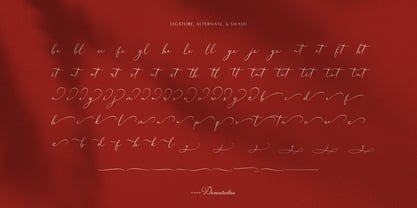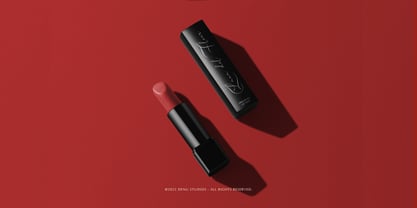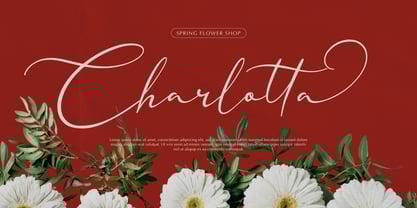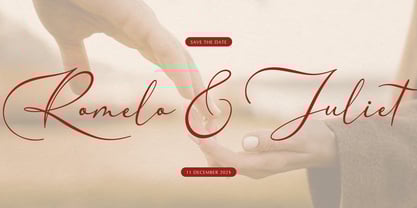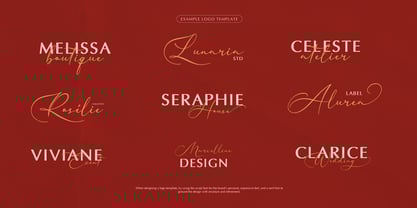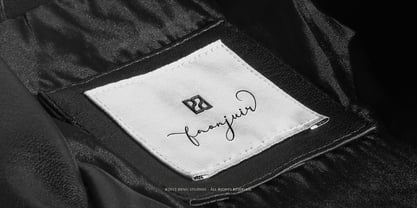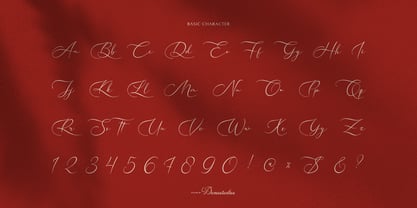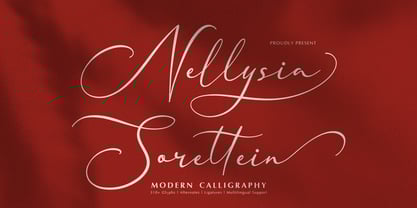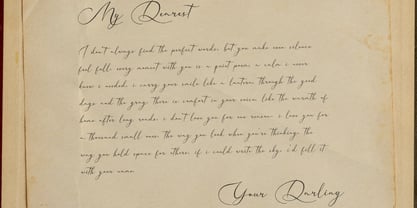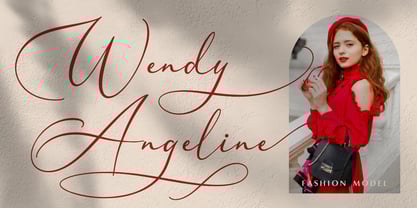
Nellysia Sorettein
par Denustudio
La famille de polices Nellysia Sorettein a été conçue par Dede Nugraha et publiée par Denustudio. Nellysia Sorettein contient 2 styles et options de package familial.
Nellysia Sorettein | Modern Calligraphy, from Denustudios, suitable for any projects such as: logos, branding projects, homeware designs, product packaging, mugs, quotes, posters, shopping bags, t-shirts, book covers, name card, invitation cards, greeting cards, label, photography, watermark, special events, and all your other lovely projects that need Modern Calligraphy a taste.
• Regular and Italic
• Standard glyphs
• Alternate and Ligature
Concepteurs: Dede Nugraha
Éditeur: Denustudio
Fonderie: Denustudio